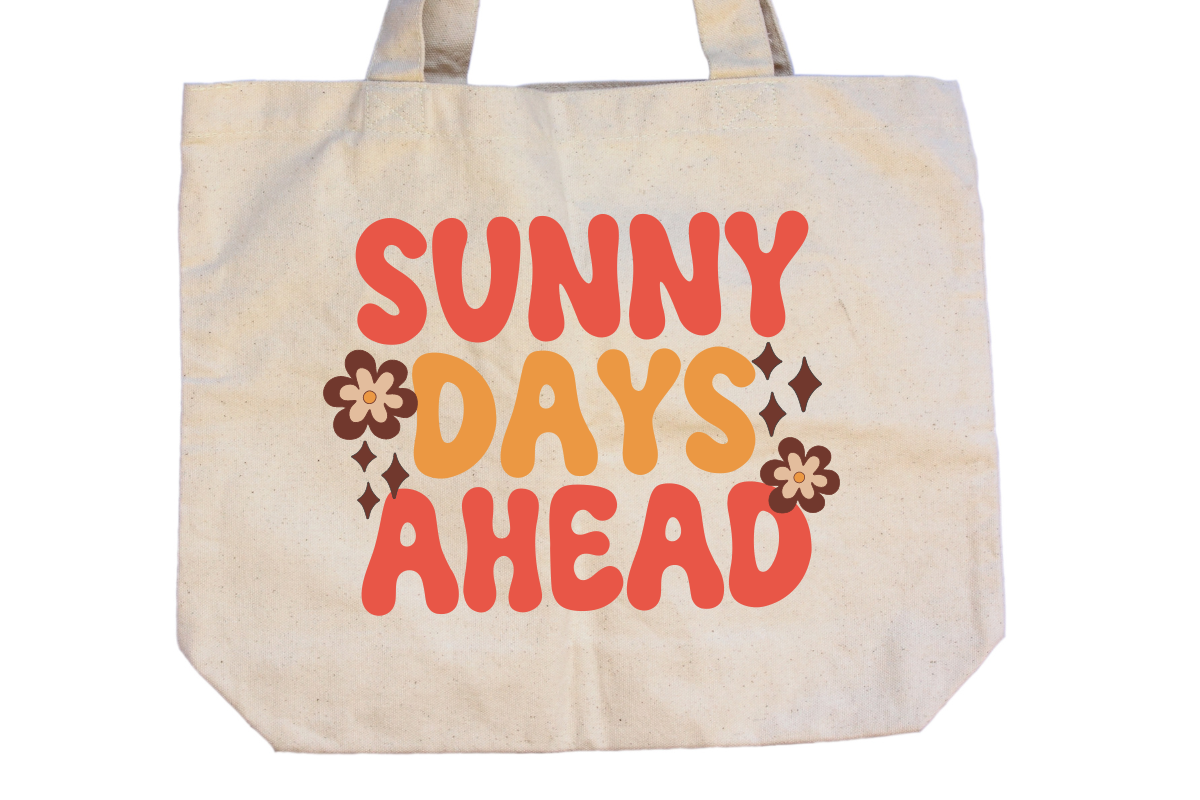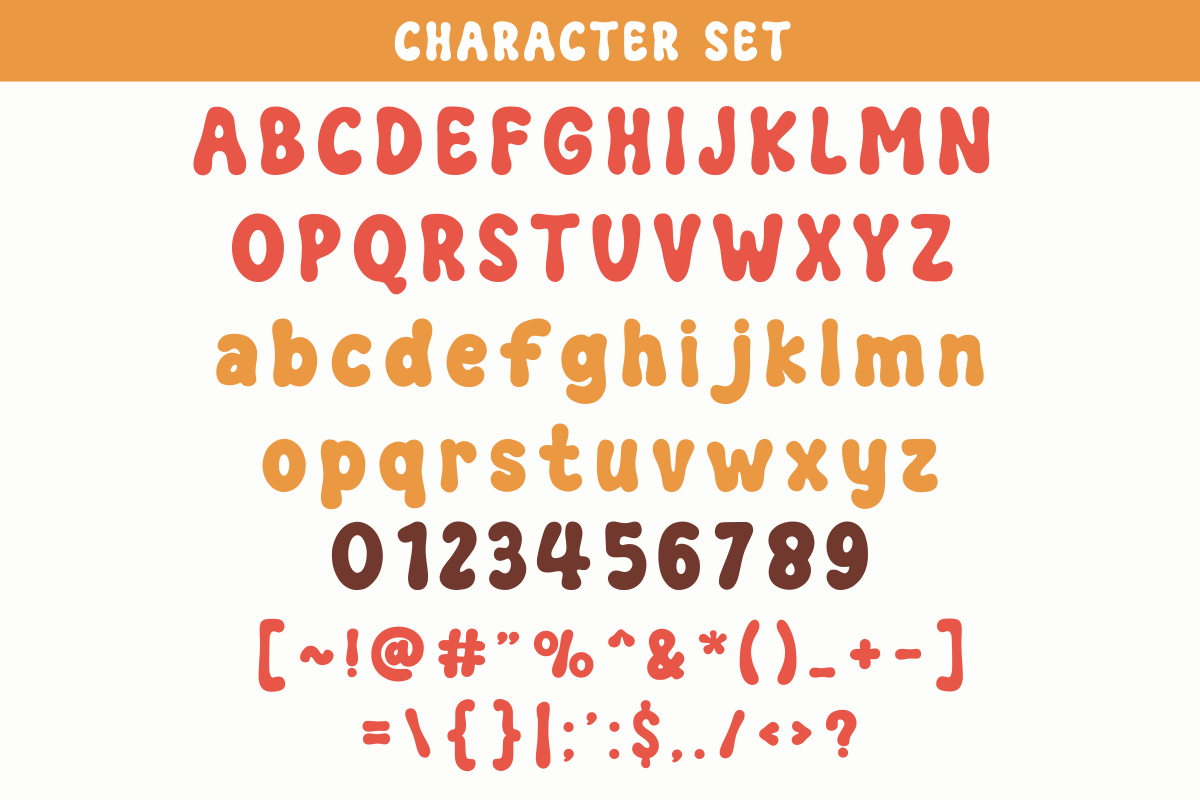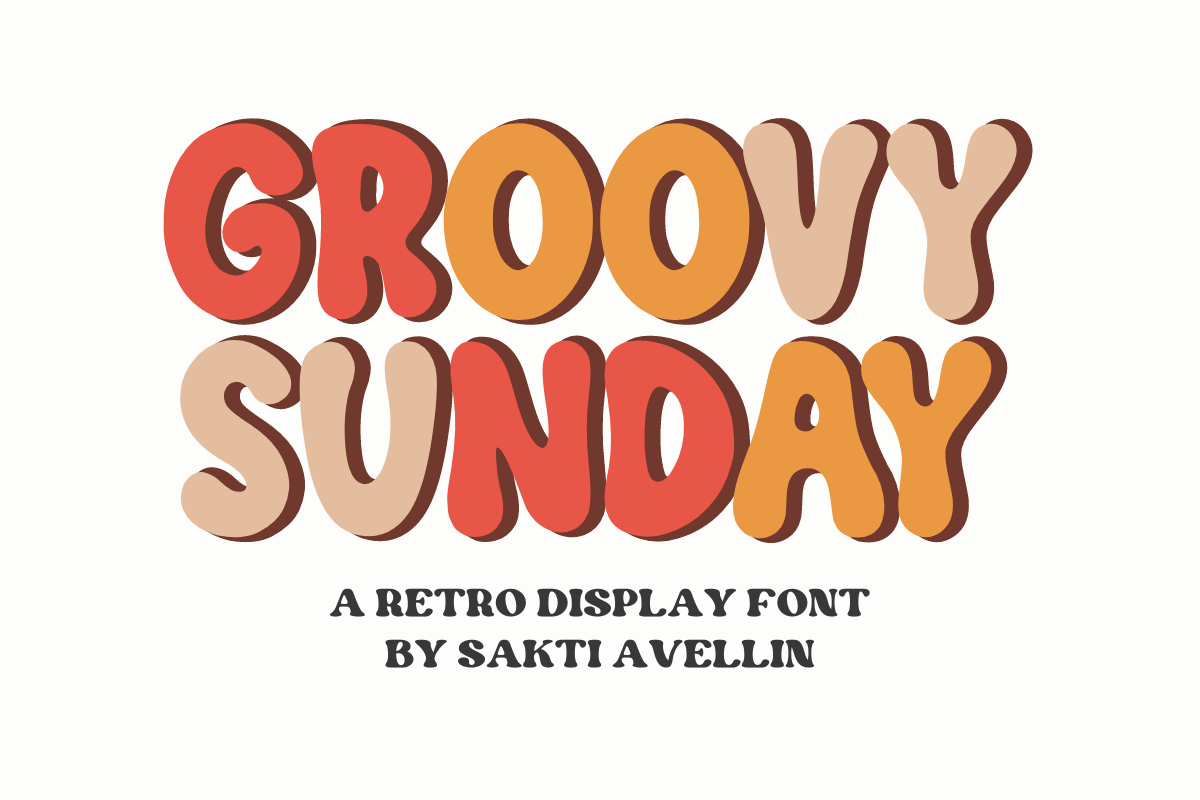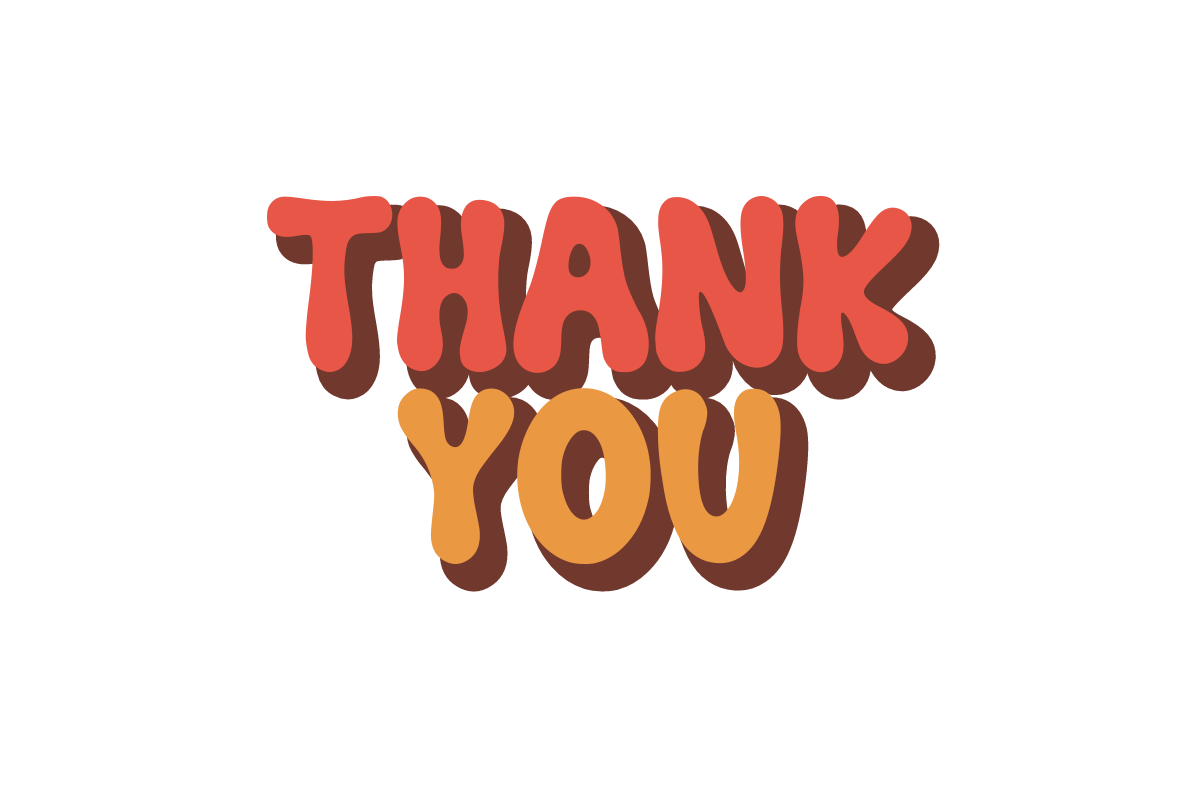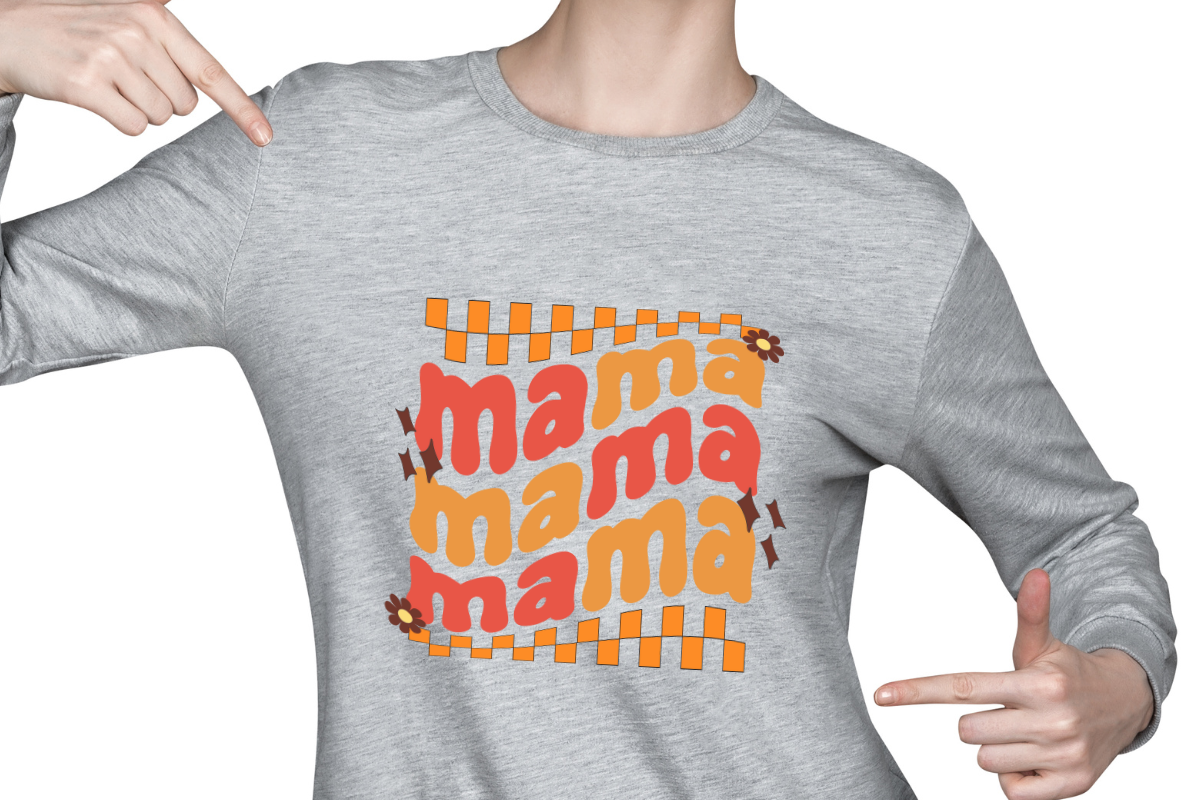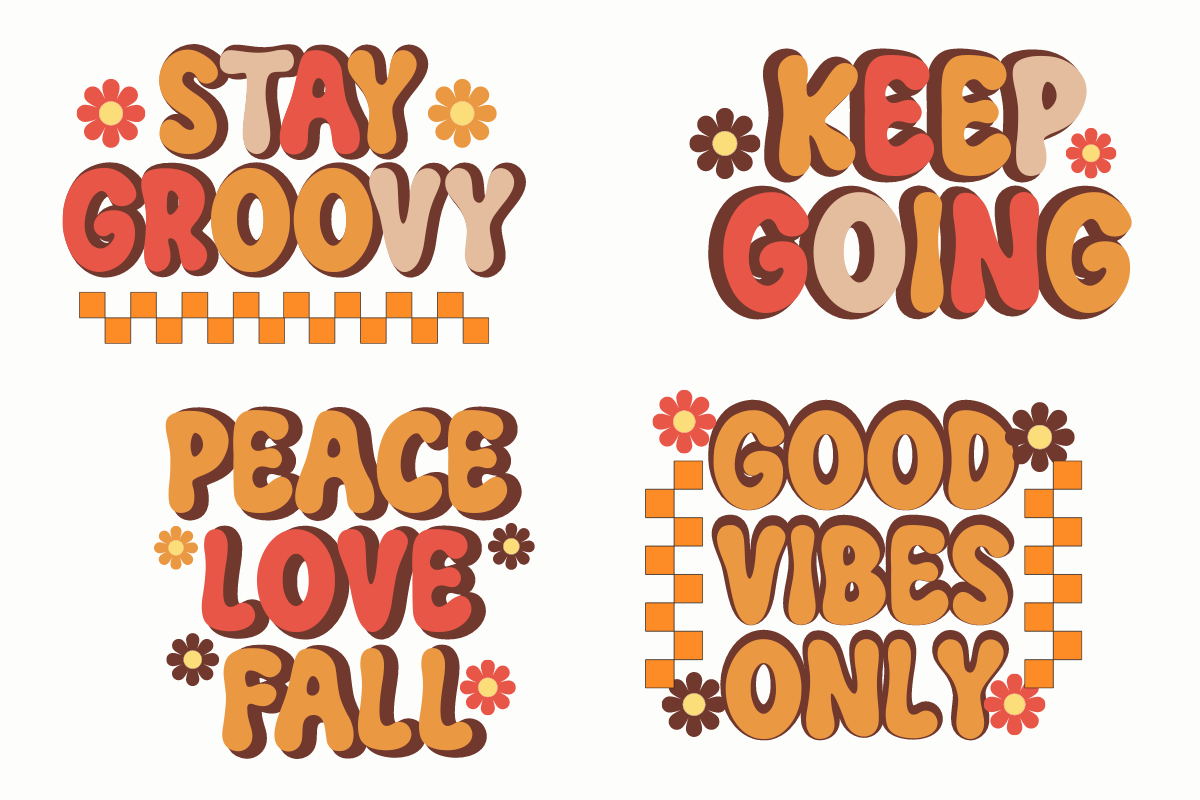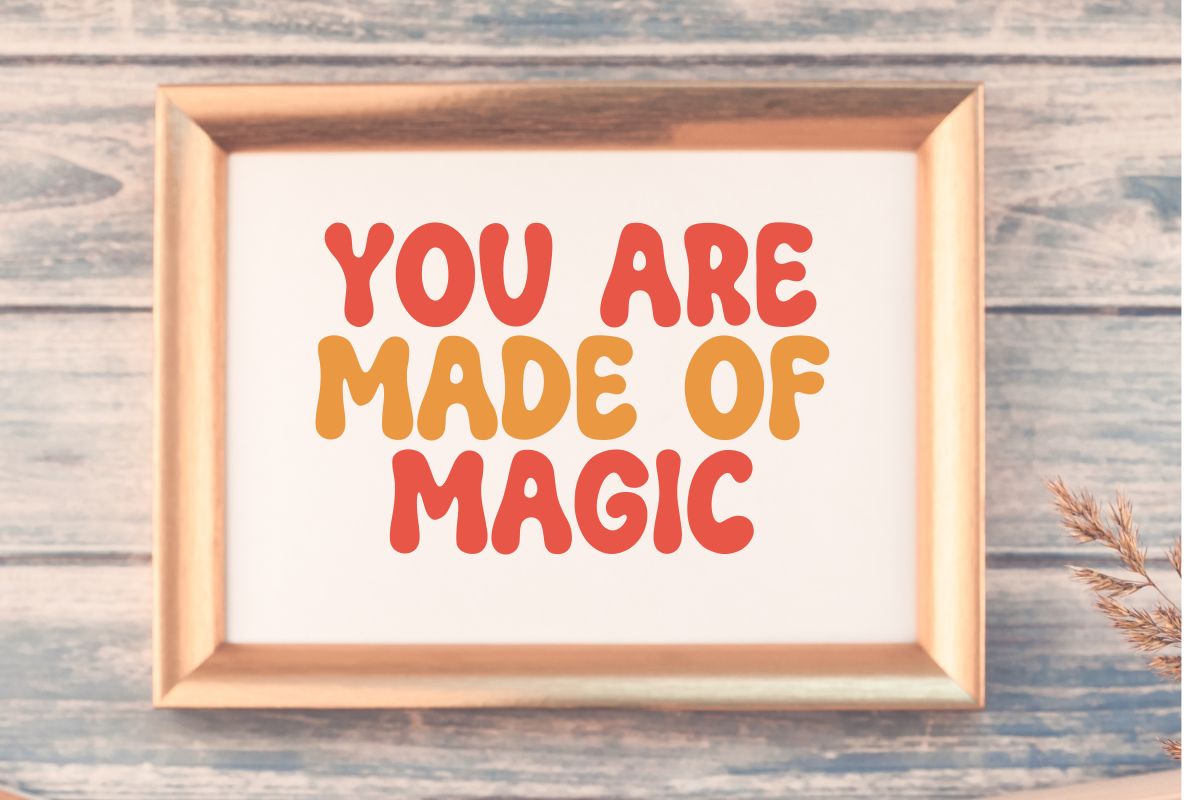
Groovy Sunday - Retro Display Font
Groovy Sunday is a vibrant, bold, and high-impact retro display font designed by Sakti Avellin to bring a nostalgic and soulful energy to your creative projects. This bubbly retro font features thick, rounded characters with a playful 1970s rhythm, making it essential for retro branding, funky t-shirt designs, vintage posters, and eye-catching social media graphics. Its high-impact, chunky letterforms ensure it stands out as a powerful display typeface for headlines and product packaging, perfect for designers seeking a mix of vintage charm and modern "groovy" aesthetics. Bring back the funk with the joyful energy of Groovy Sunday!